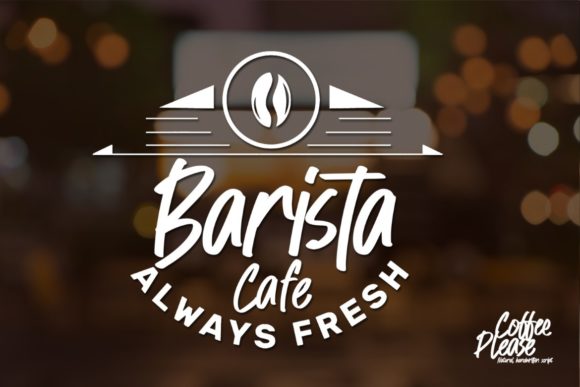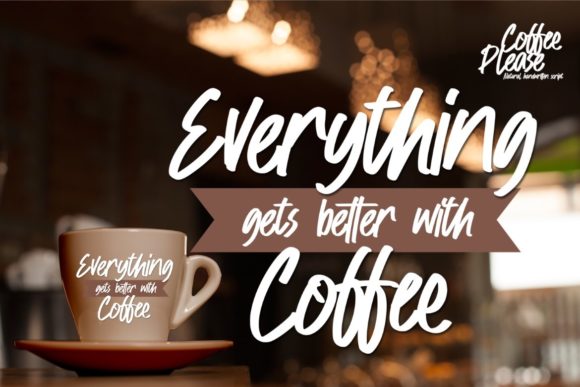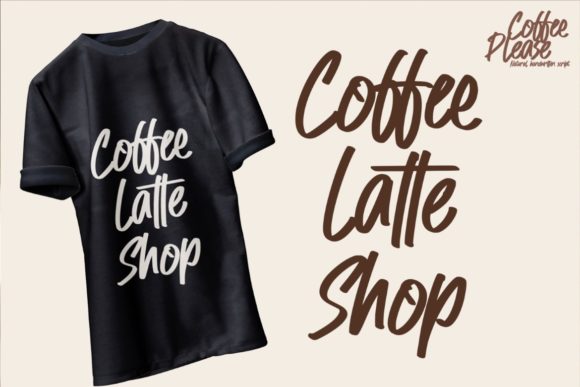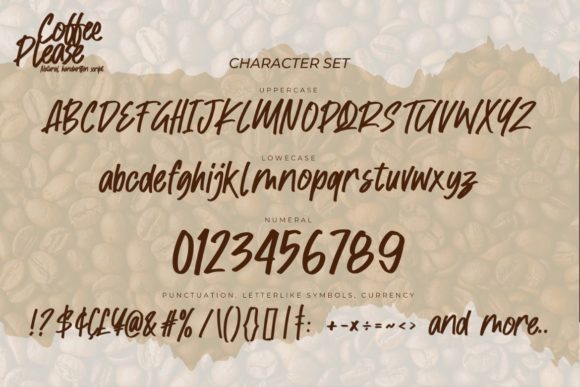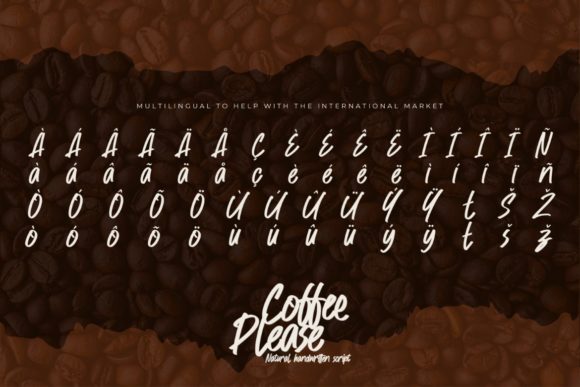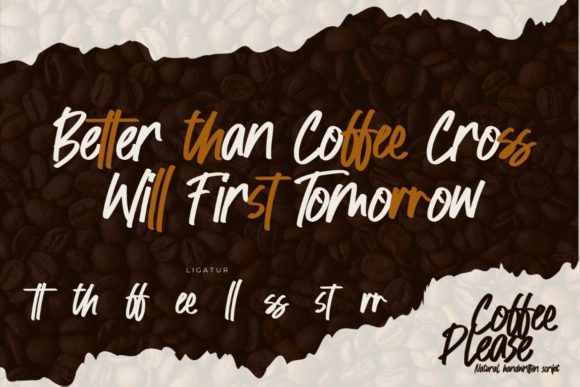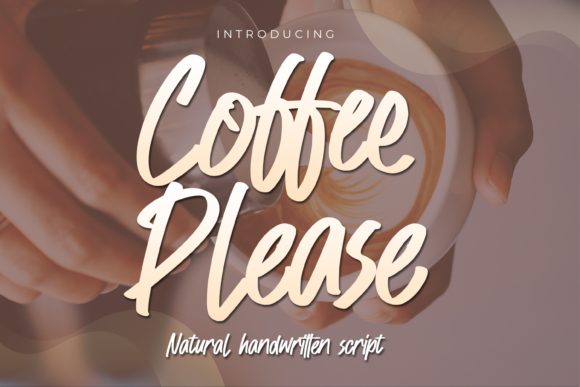
Coffee Please Font: A Stunning Handwritten Font for Your Creative Projects
Are you looking for a unique and captivating font to elevate your creative projects? Look no further than the Coffee Please font, a beautiful handwritten font that exudes a natural style and dramatic movement. Crafted manually with love and passion, this font is sure to add a touch of elegance and sophistication to your designs.
The Story Behind Coffee Please Font
Coffee Please font is a labor of love, carefully crafted by skilled designers who poured their hearts and souls into creating a truly exceptional font. The result is a stunning handwritten font that boasts a natural, effortless look that’s perfect for a wide range of creative projects. Whether you’re a designer, crafty DIY enthusiast, or simply someone who appreciates beautiful typography, Coffee Please font is sure to impress.
Key Features of Coffee Please Font
• Handwritten with love and passion: Each letter and stroke was carefully crafted manually, giving the font a unique and personal touch.
• Natural style: The font features a natural, effortless look that’s perfect for designs that require a touch of elegance and sophistication.
• Dramatic movement: The font’s dramatic movement adds a sense of energy and dynamism to your designs, making them stand out from the crowd.
• Versatile: Coffee Please font is suitable for a wide range of creative projects, from branding and advertising to packaging and digital design.
Uses for Coffee Please Font
Coffee Please font is an incredibly versatile font that can be used in a variety of creative projects, including:
• Branding and advertising: Use Coffee Please font to create eye-catching logos, ads, and marketing materials that showcase your brand’s personality and style.
• Digital design: Add a touch of elegance and sophistication to your website, social media graphics, or digital illustrations with Coffee Please font.
• Packaging design: Use Coffee Please font to create beautiful and eye-catching packaging that stands out on store shelves.
• DIY crafts: Coffee Please font is perfect for crafty DIY enthusiasts who want to add a personal touch to their projects, such as handmade cards, invitations, or scrapbooking.
Why Choose Coffee Please Font?
• Unique and distinctive: Coffee Please font is a one-of-a-kind font that will set your designs apart from the crowd.
• Elegant and sophisticated: The font’s natural style and dramatic movement add a touch of elegance and sophistication to your designs.